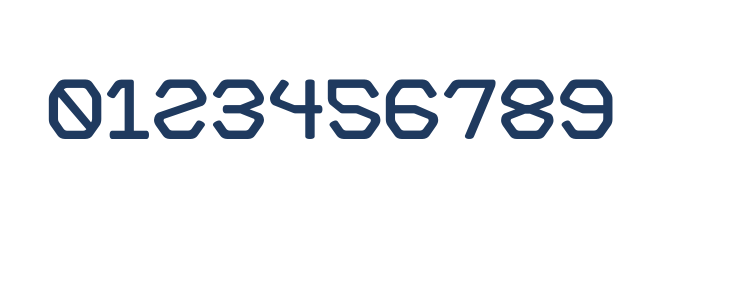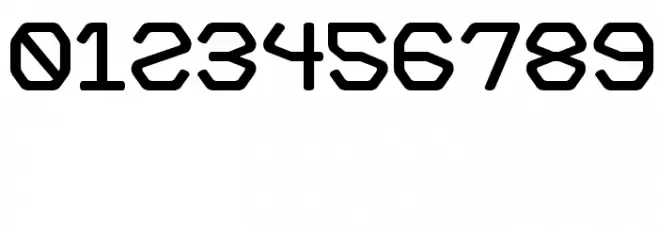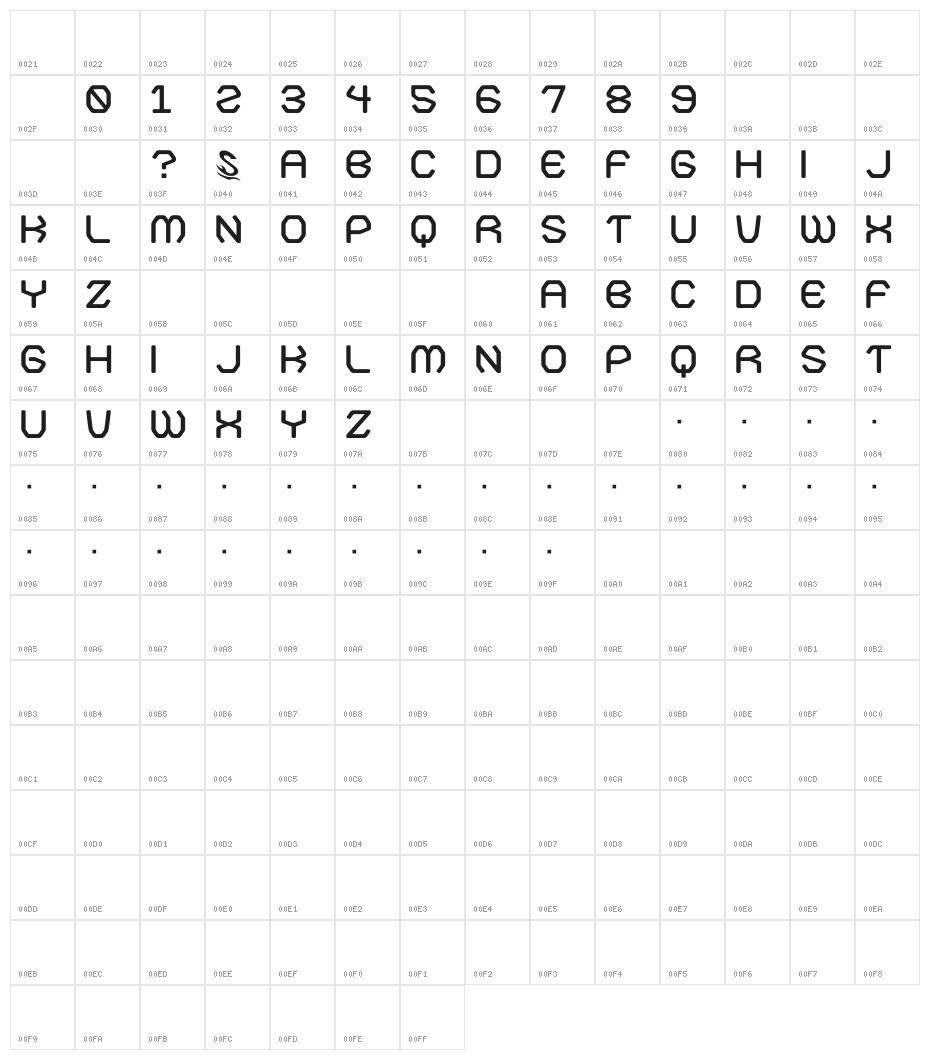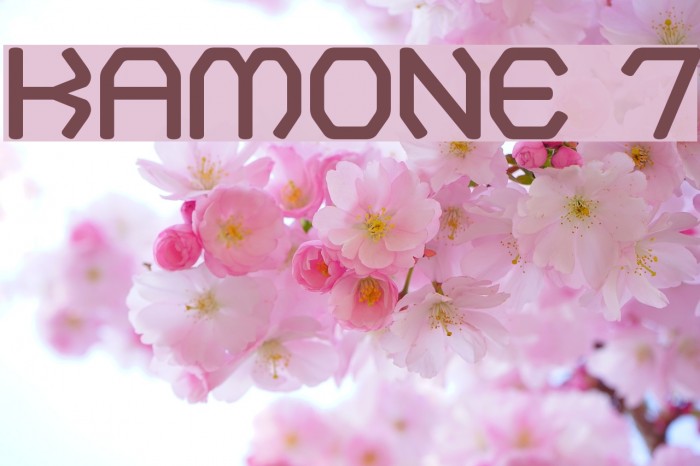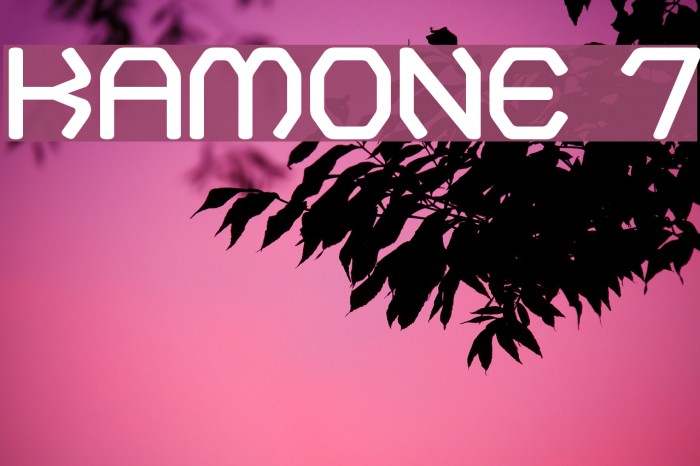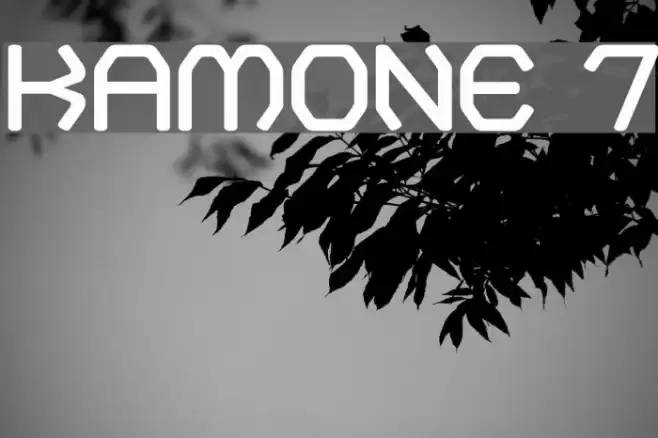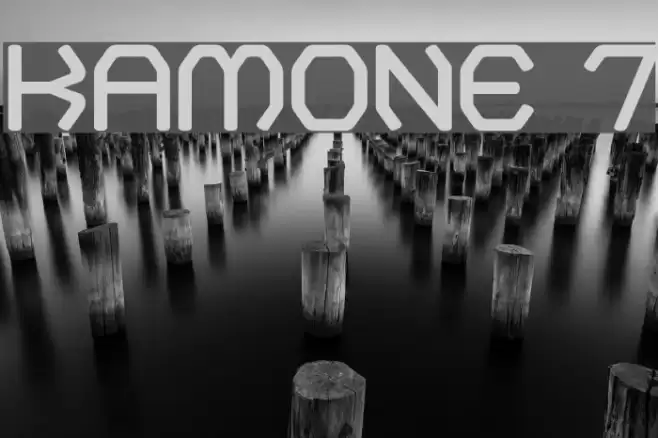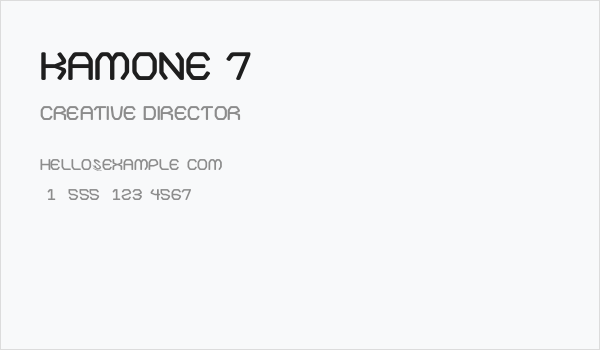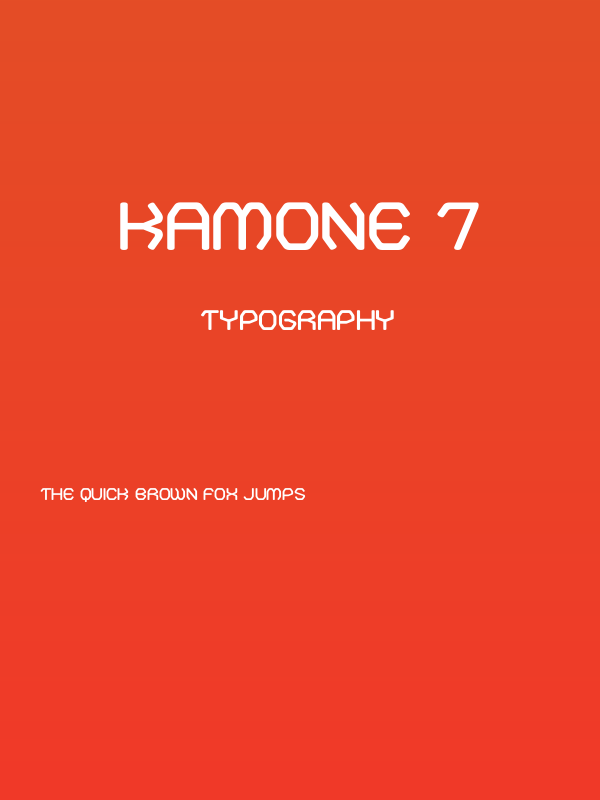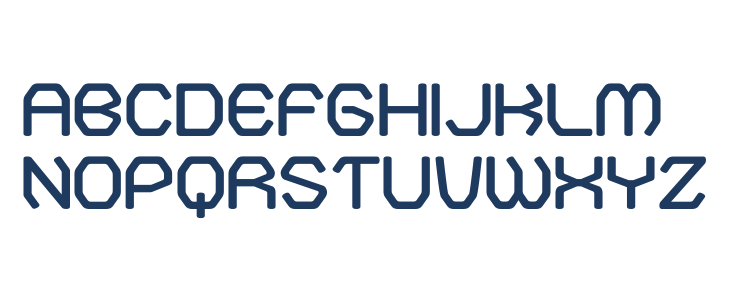
Kamone 7 Font
Kamone 7 Description
This font features a geometric and modern design with a distinct octagonal shape. Each character is crafted with precision, showcasing a uniform thickness that gives it a bold and structured appearance. The font's unique style is characterized by its angular corners and straight lines, creating a futuristic and tech-inspired look. The consistent line weight across all characters ensures readability while maintaining a strong visual impact. This font is ideal for projects that require a contemporary and innovative aesthetic.
| Proposed Projects | Ideal for technology branding, futuristic posters, digital interfaces, and modern advertising campaigns. |